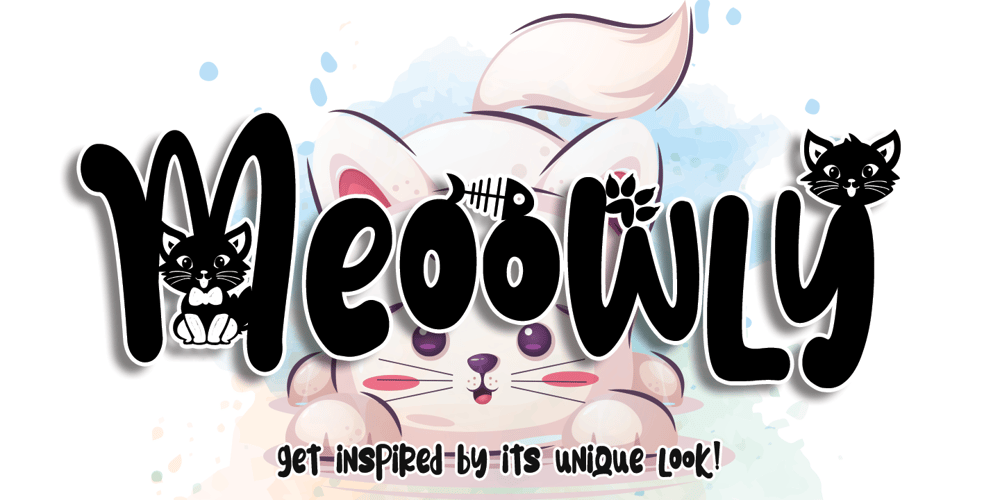
Meoowly
Meoowly font
Meoowly Font Family was designed by Stefani Tri Rosa Setiati Christiana and published by Stefani Letter. Meoowly contains 5 styles and family package options. Meoowly is an amazing display font. It is the perfect choice for cat related and anything project! This display font is the perfect choice for making original and outstanding designs. This font is PUA encoded which means you can access all of the cute glyphs with ease! It also features a wealth of including ligatures.